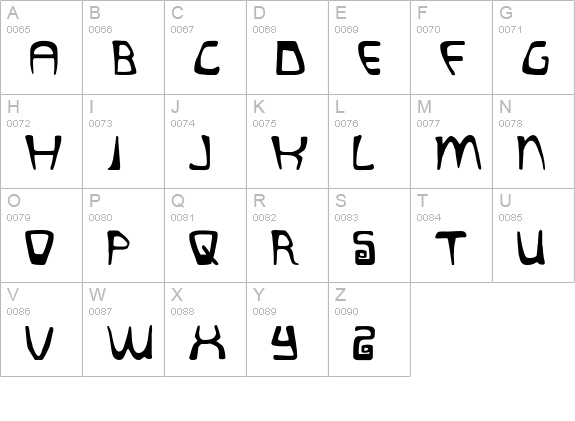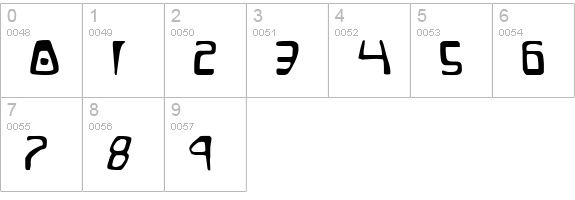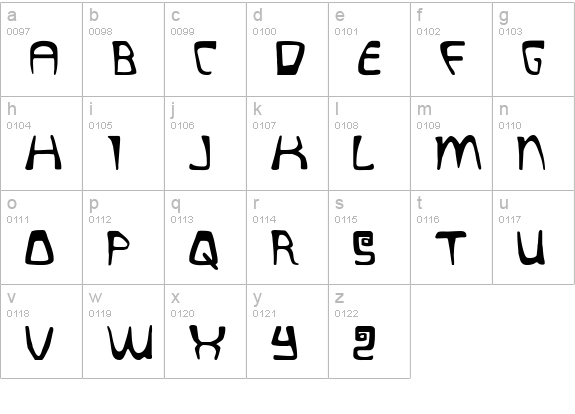
Quatl Font Details
Introducing Quatl font, a stunning typeface that effortlessly combines elegance with a touch of modernity. Designed with meticulous attention to detail, Quatl is the perfect choice for those seeking a versatile and captivating font for their creative projects. Quatl font's unique and captivating design is sure to make a lasting impression on your audience. Whether you're designing a logo, crafting a brand identity, or working on a personal project, this font will elevate your work to new heights. What sets Quatl font apart is not only its impeccable design, but also the fact that it is freely available to download at FontsMarket.com. Yes, you read that right – Quatl font can be yours without any cost. We believe that creativity should be accessible to all, and that's why we've made it easy for you to obtain this exceptional font, completely free of charge. With its wide range of weights and styles, Quatl font offers endless possibilities for your design projects. From thin and delicate to bold and impactful, this font has got you covered. Its clean and legible letterforms ensure maximum readability, while its subtle curves and sophisticated details add a touch of elegance to any design. Whether you're a professional designer or an aspiring creative, Quatl font is here to help you bring your vision to life. Download it today at FontsMarket.com and unlock the creative potential that this remarkable font holds. Don't miss out on this incredible opportunity to enhance your designs with a high-quality typeface that's both visually stunning and freely available.